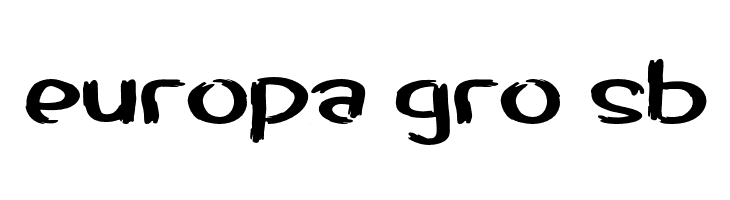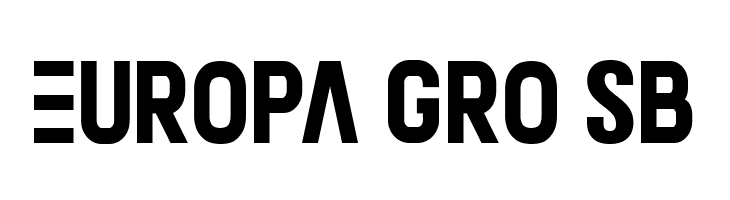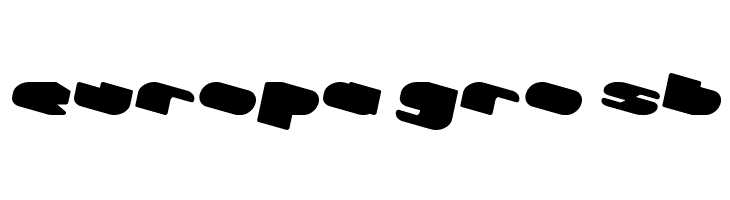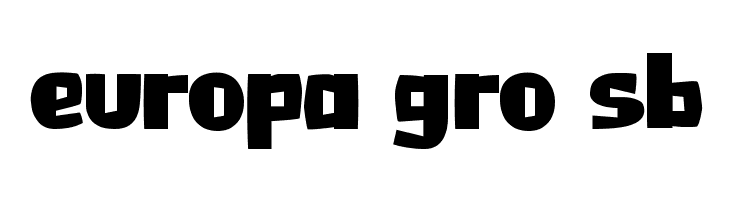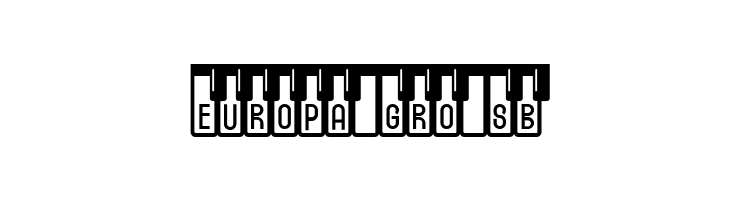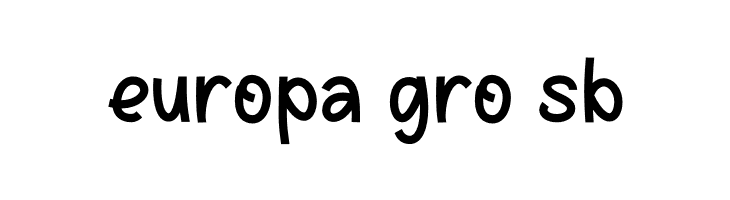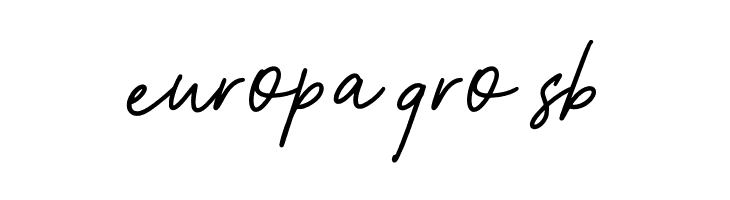
( Fonts by Rangkai Aksara - Personal-use only. For commercial use please contact owner. ) A bold, brushstroke font with an energetic, hand-painted style. Download 28 Downloads@WebFont
( Fonts by mlkwsn - www.mlkwsn.com - Personal-use only. For commercial use please contact owner. ) A bold, geometric typeface with a modern and assertive style. Download 61 Downloads@WebFont
( Fonts by weknow - Wino S Kadir - Personal-use only. For commercial use please contact owner. ) A bold, italic, and playful font with a dynamic and chunky style. Download 22 Downloads@WebFont
( Fonts by Pinisiart ) A bold, playful font with blocky, hand-crafted shapes. Download 256 Downloads@WebFont
( Fonts by Vladimir Nikolic ) A decorative font styled like piano keys, featuring bold uppercase letters within key shapes. Download 36 Downloads@WebFont
Font by letterhanna. For commercial use please contact the owner. ( Free for personal use only. With only $15 You can purchase the basic desktop license: https://letterhanna.com/ ) A modern and elegant font with a clean, geometric influence. Download 89 Downloads@WebFont
( Fonts by Letterena Studios ) A fluid, cursive script font with a natural handwritten style. Download 150 Downloads@WebFont
( Fonts by Alit Design ) A bold, distressed font with sharp serifs and a rugged, edgy style. Download 68 Downloads@WebFont
( Fonts by Nirmala Creative - Personal-use only. For commercial use please contact owner. ) Playful handwritten font with a friendly look. Download 277 Downloads@WebFont
( Fonts by Kong Font ) Handwritten cursive script font. Download 92 Downloads@WebFont